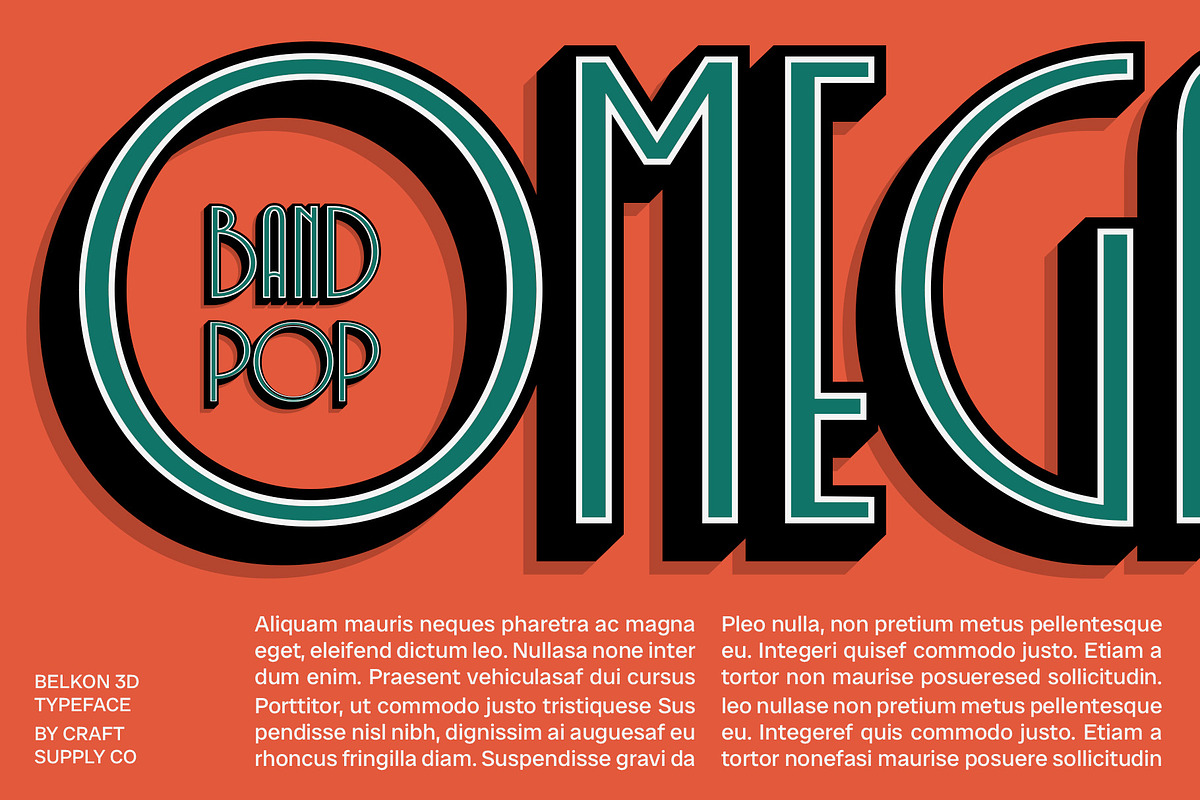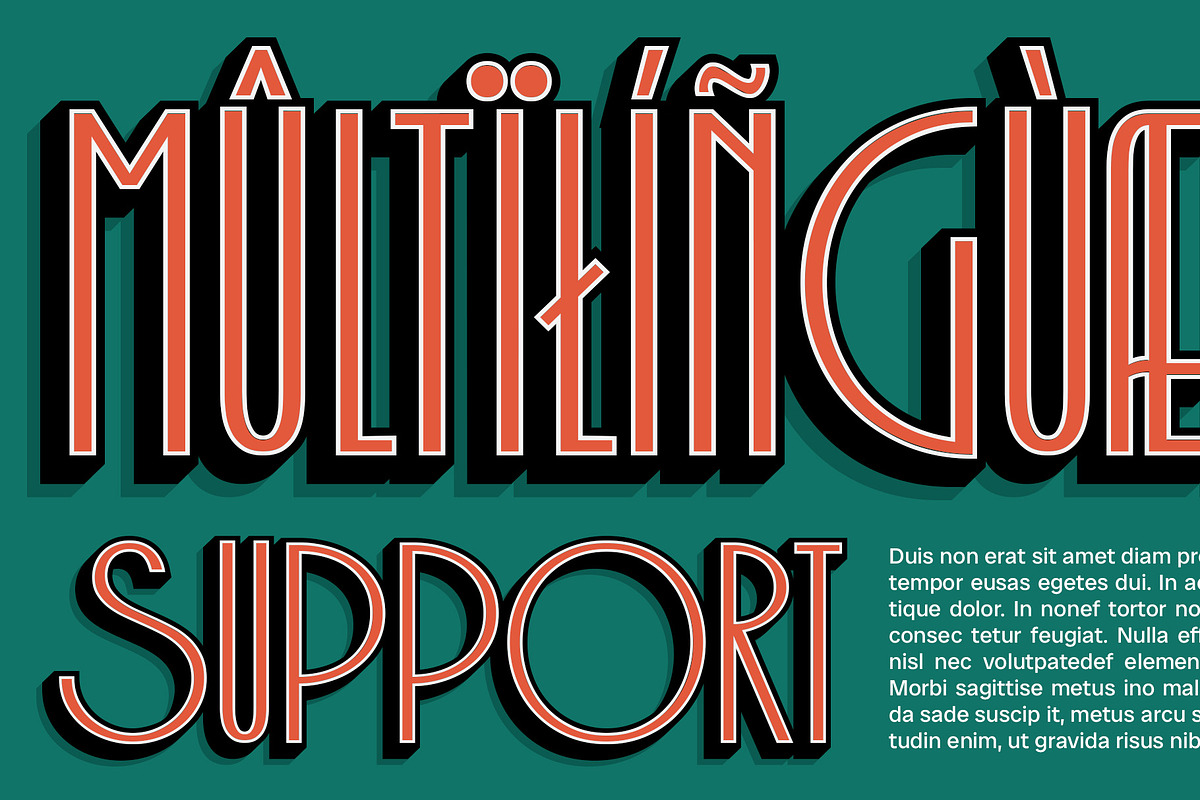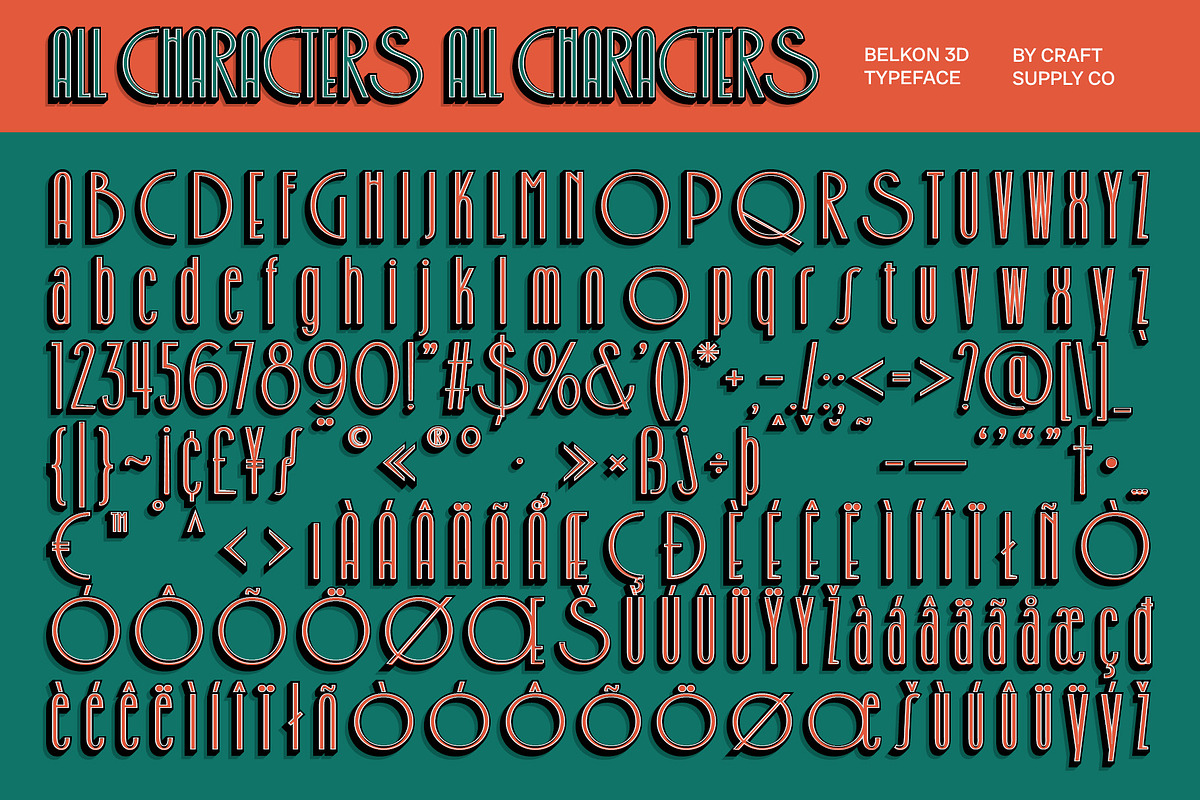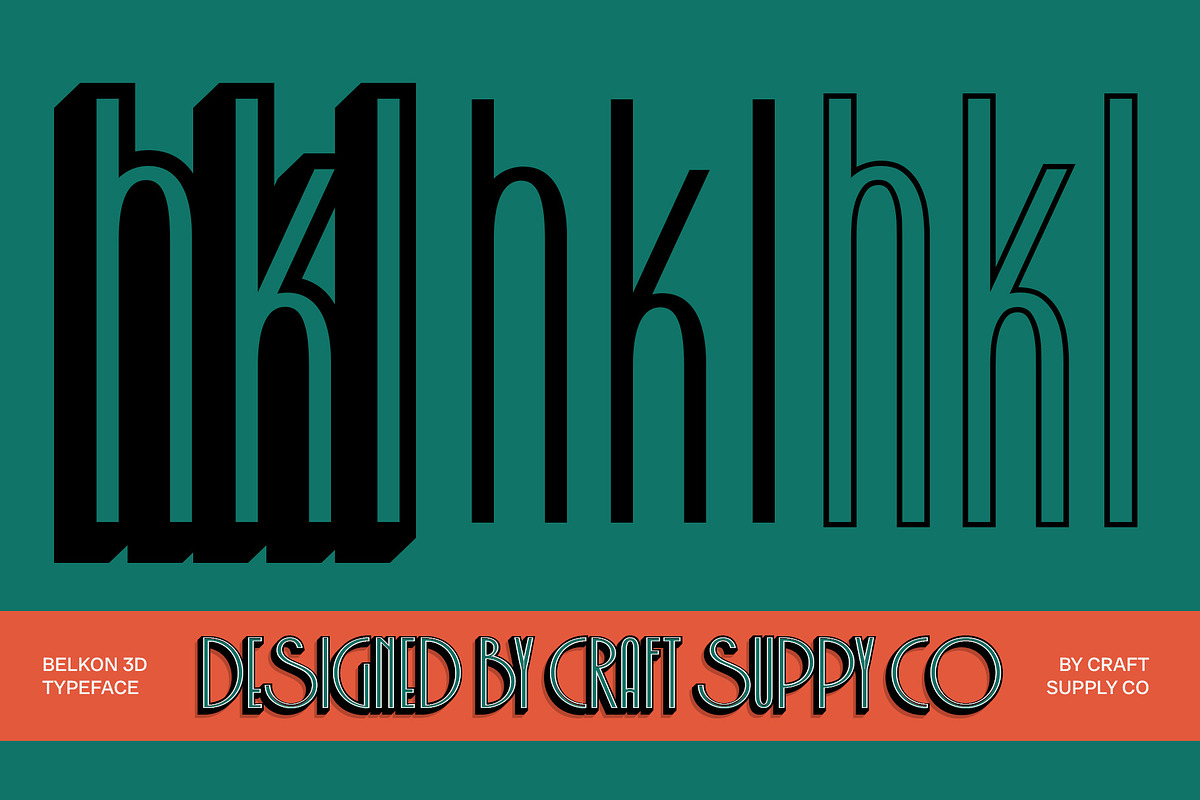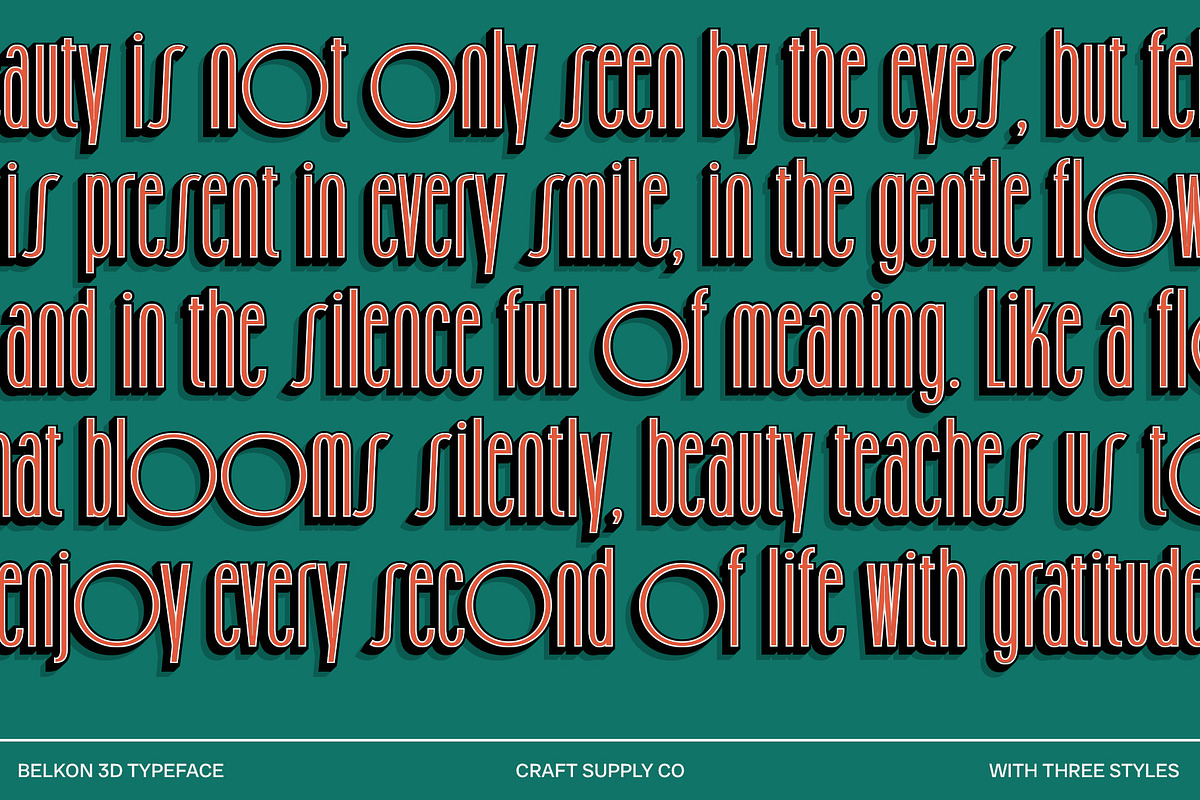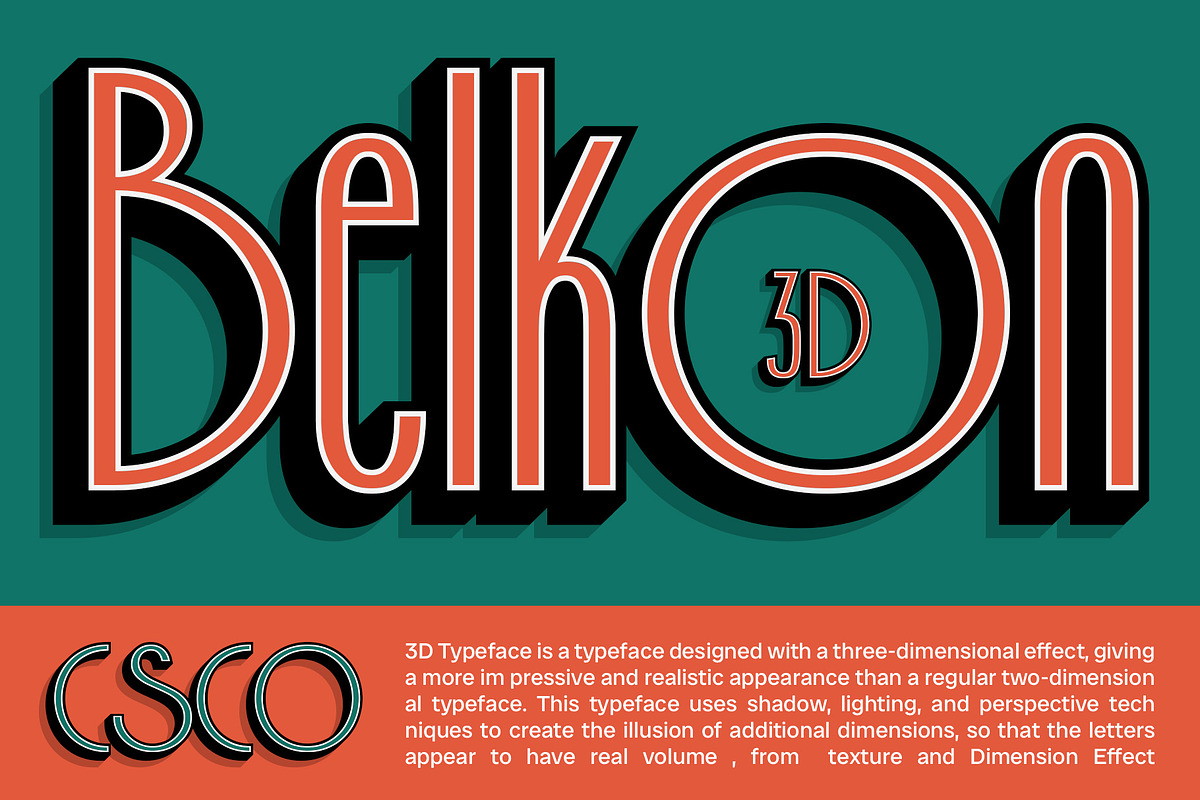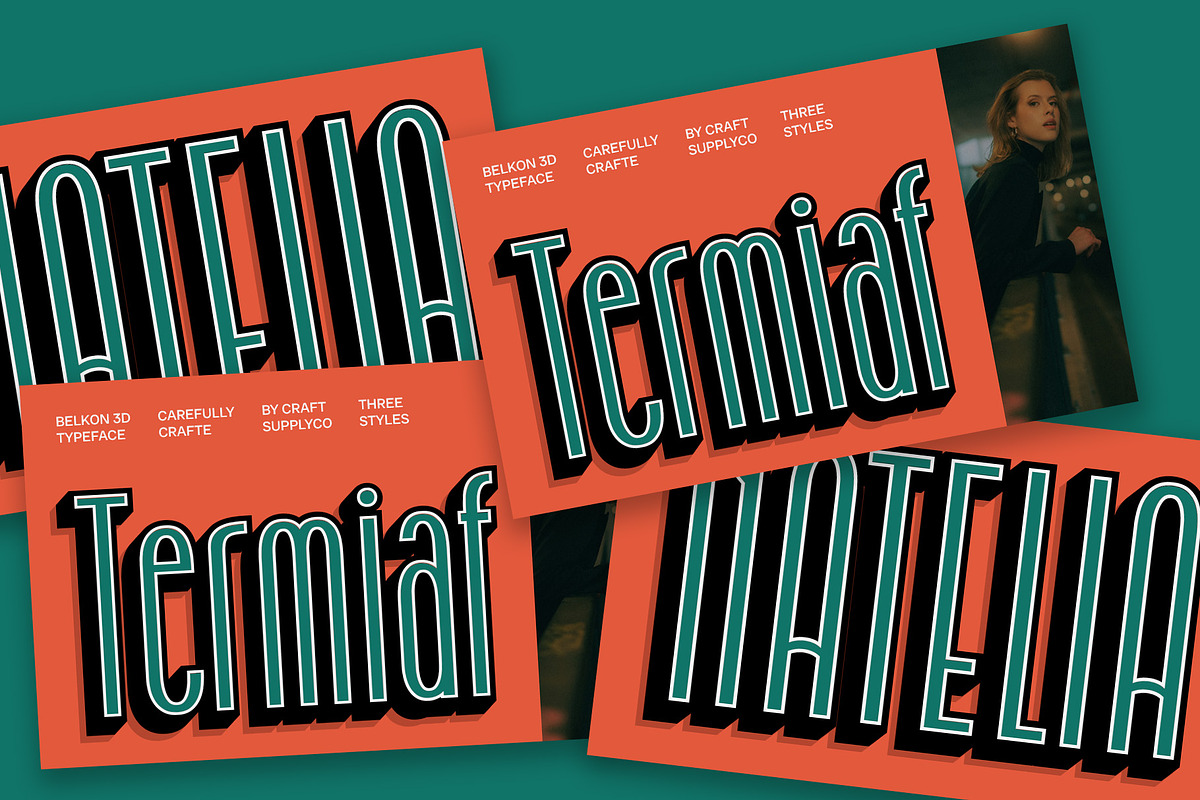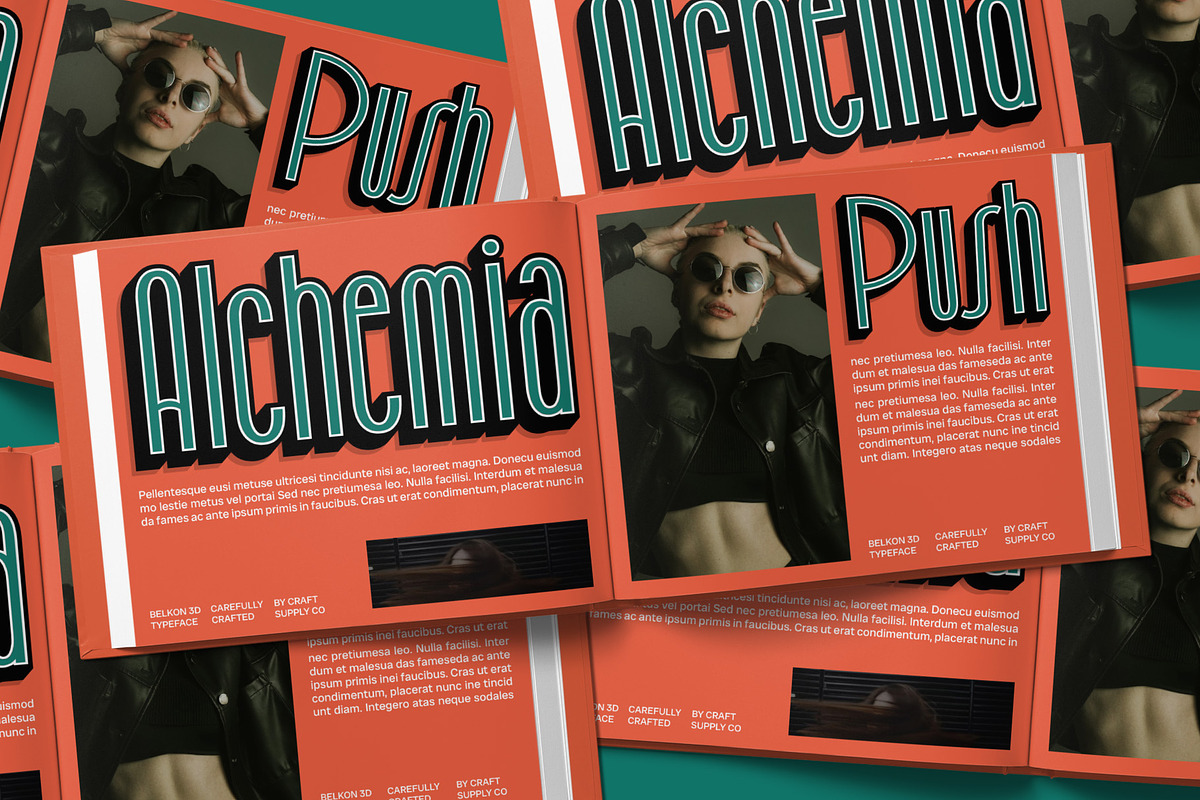
Belkon 3D
Belkon 3D Font – Art Deco Sans-Serif with Modern 3D Layers
Modern Sans-Serif with Art Deco Influence Belkon 3D is a modern sans-serif font inspired by Art Deco, featuring bold, geometric lines and symmetrical shapes. Its classic, retro aesthetic is characterized by elegance and sophistication, with condensed letterforms that create a sleek and space-efficient appearance, adding a contemporary edge to the vintage style.
3D Effect for Depth and Dimension The 3D effect enhances the font’s visual impact by adding depth and dimension, making each character more vibrant and dynamic. This layered effect brings a modern and engaging twist to the traditional Art Deco forms, resulting in a striking and immersive look.
Perfect for Glamorous Vintage Designs with a Modern Twist Belkon 3D combines the elegance of Art Deco with modern design elements, making it an excellent choice for projects that aim to showcase a glamorous yet contemporary vibe. Its combination of retro style and 3D layering is ideal for posters, branding, and other visual designs that require a bold and standout aesthetic.
Versatile for Striking Visual Projects Whether used for branding, posters, or promotional materials, Belkon 3D’s unique blend of vintage charm and modern flair ensures a memorable and impactful presence. It’s perfect for designers looking to create visually engaging projects that blend classic elegance with modern innovation.
- Belkon Regular
- Belkon Outline
- Belkon Extrude Right
- Belkon Extrude Left